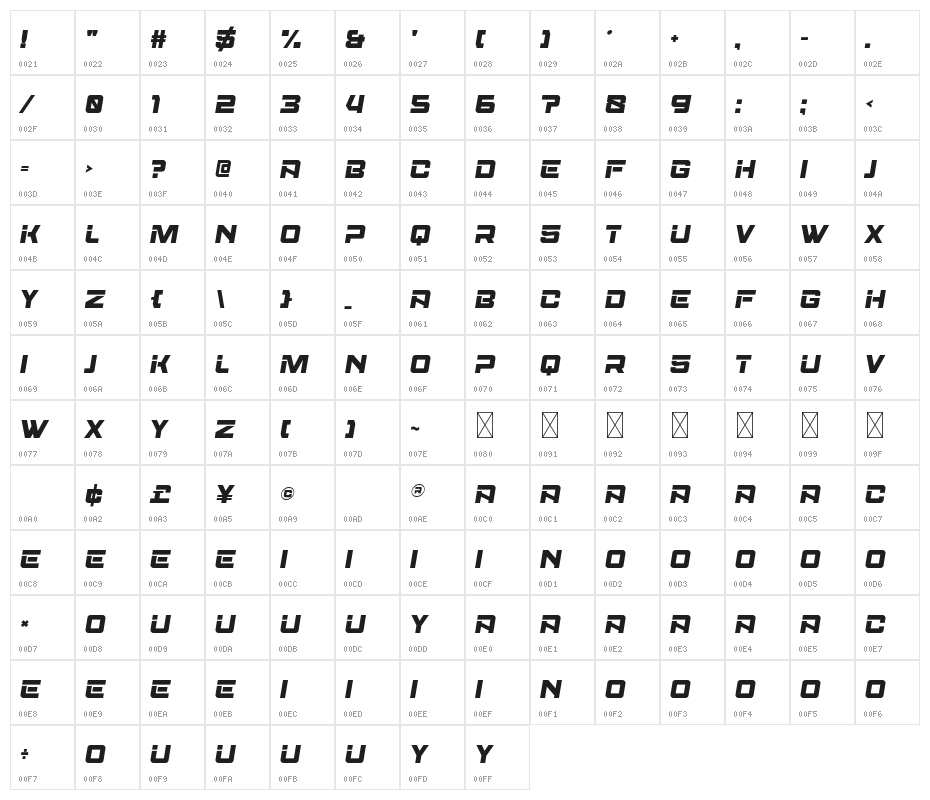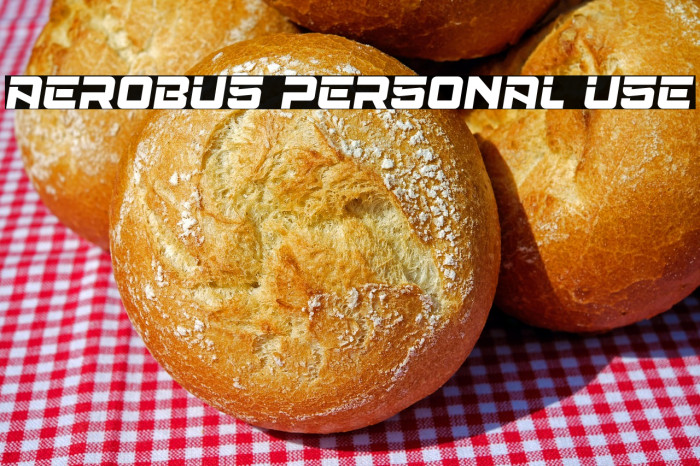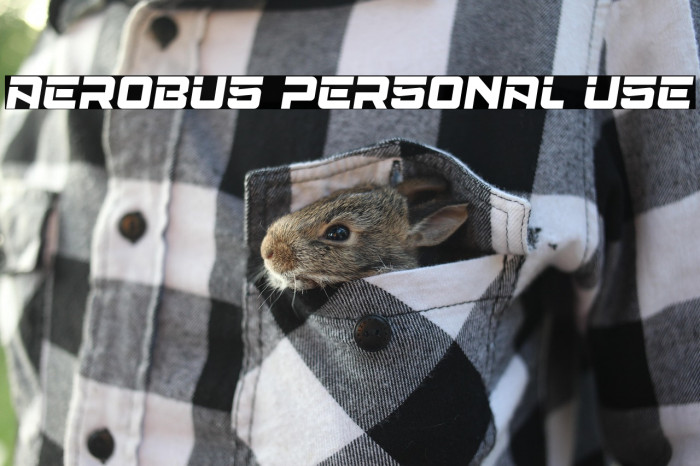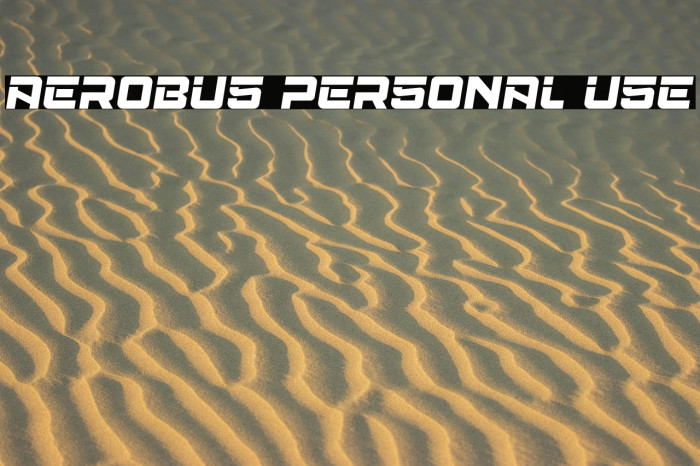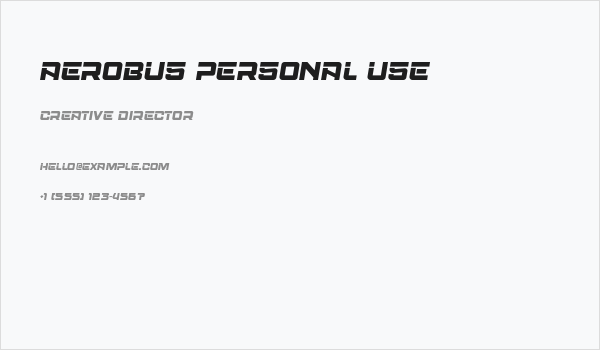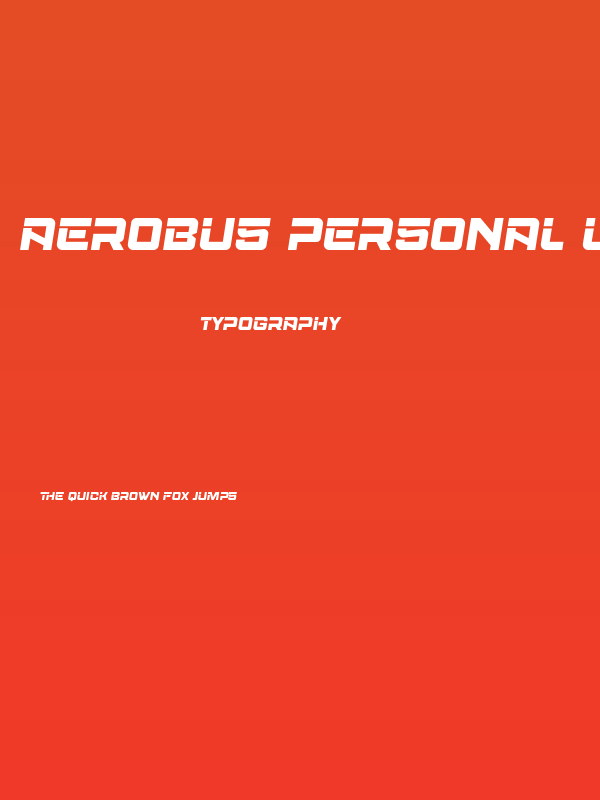
Aerobus Personal Use Font
Aerobus Personal Use Description
A bold, modern sans-serif font with a futuristic and angular design, featuring slanted characters and a strong presence.
| Overall Style | Futuristic, Modern |
| Use Case | Logos, Headlines |
| Proposed Projects | Technology branding, sports logos, sci-fi posters. |